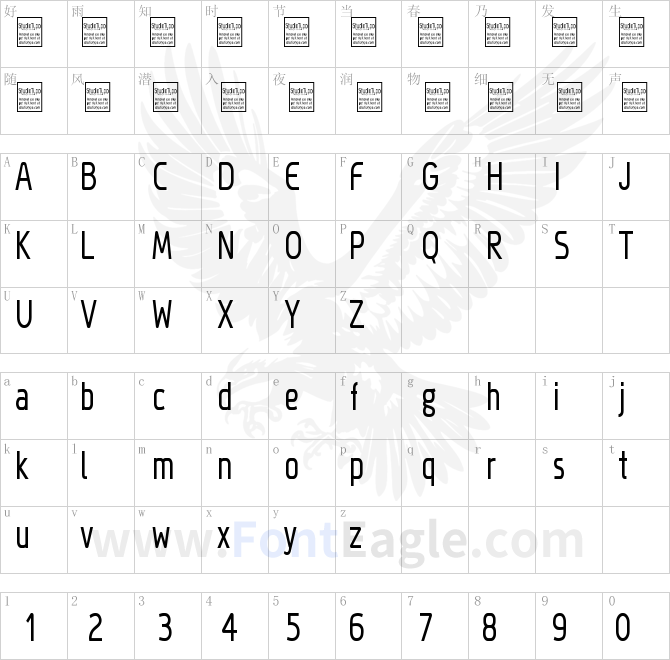
- Font name:Megi Sans Narrow
- Font Subfamily ID:Megi Sans Narrow:Version 1.00
- Font Full Name:Megi Sans Narrow
- Font Version:Version 1.00 October 12, 2014, initial release
- Postscript:MegiSansNarrow
- Font Copyright:Typeface © StudioTypo. 2014. All Rights Reserved